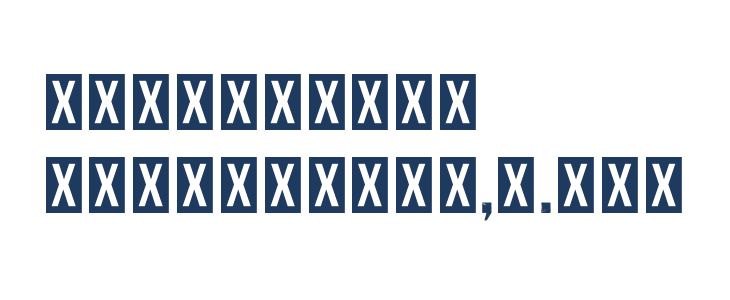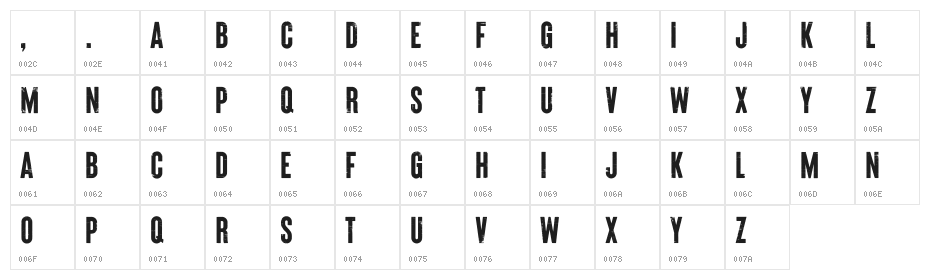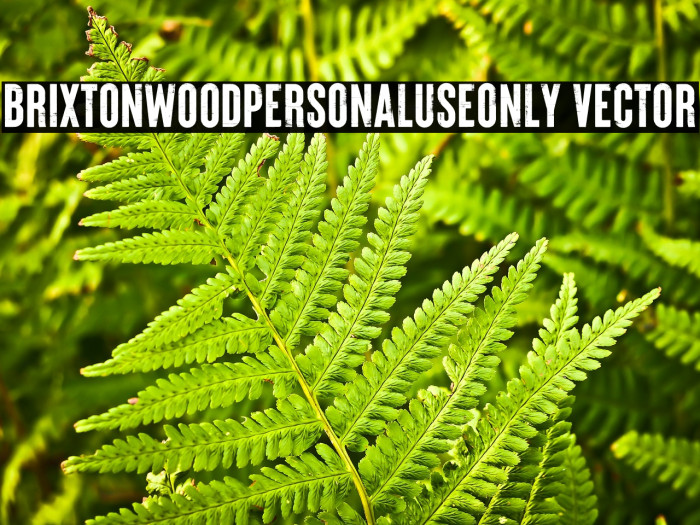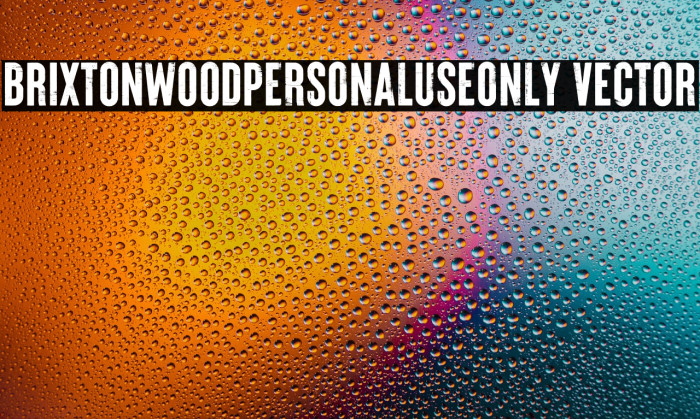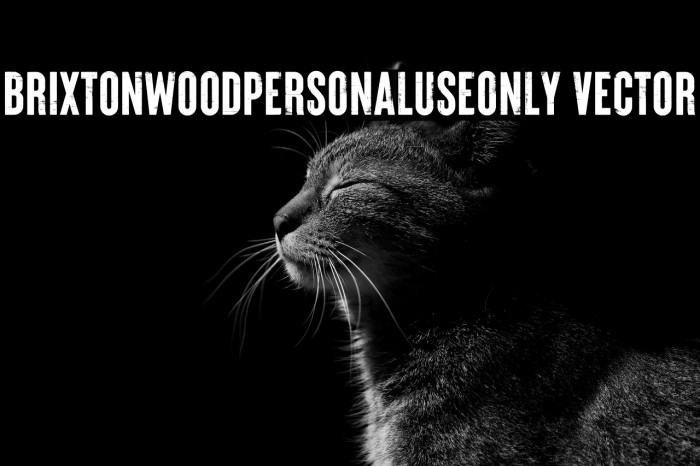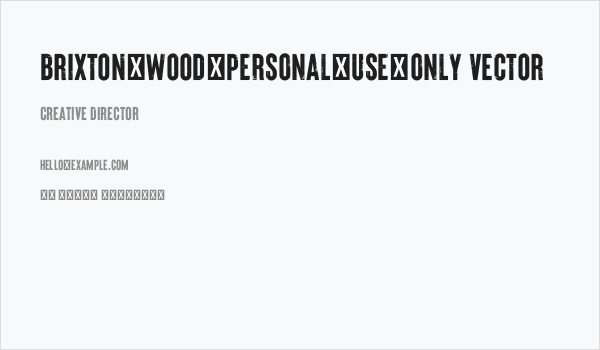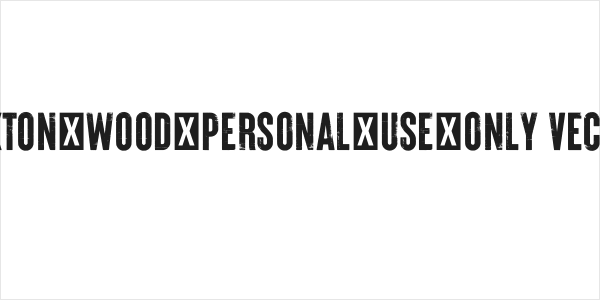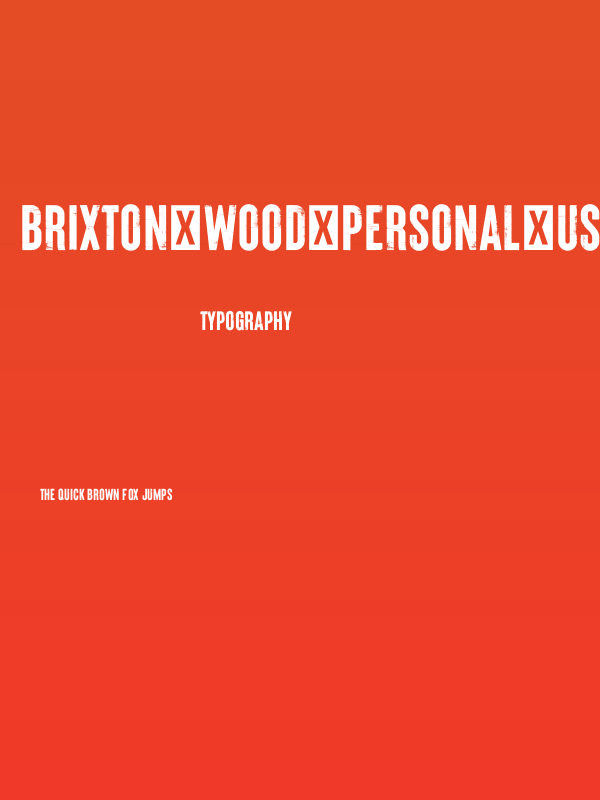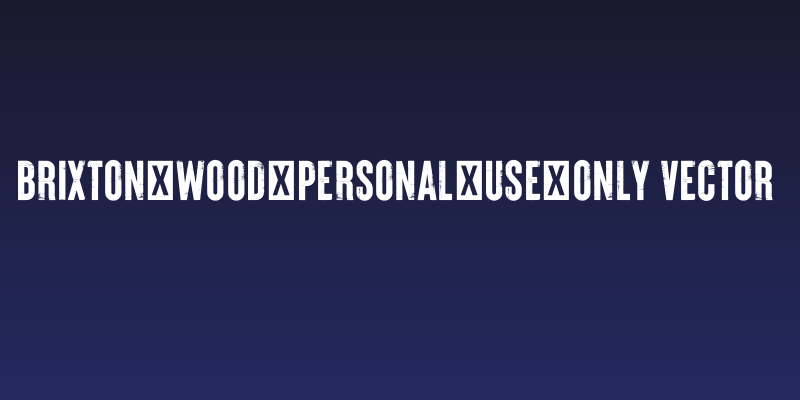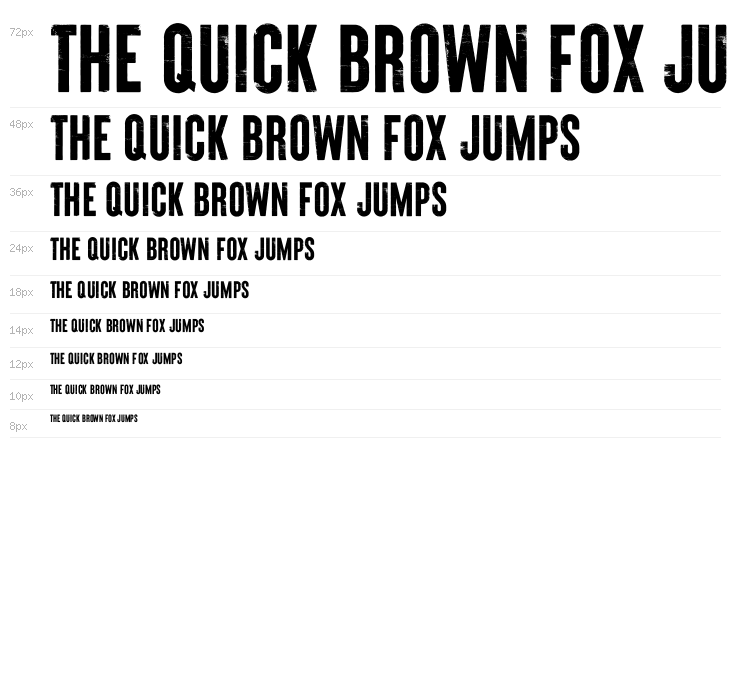
Brixton_Wood_PERSONAL_USE_ONLY Vector Font
Brixton_Wood_PERSONAL_USE_ONLY Vector Description
This font features a bold, distressed style with a vintage, grunge aesthetic. The uppercase letters are prominently displayed with a rough texture, giving them a worn, rustic appearance. The characters are uniformly bold, with a consistent width that enhances their strong visual impact. The distressed effect adds character and depth, making it ideal for projects that require a rugged or industrial feel. The font's design is both eye-catching and versatile, suitable for various creative applications.